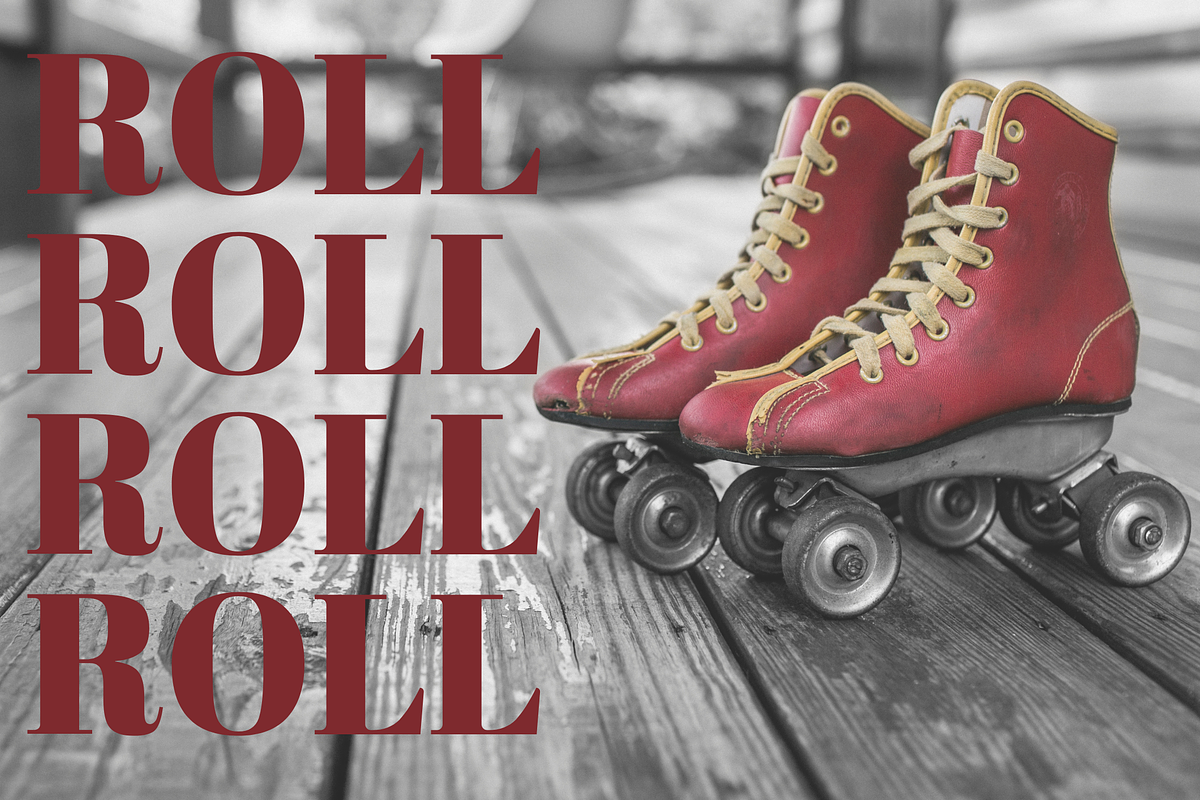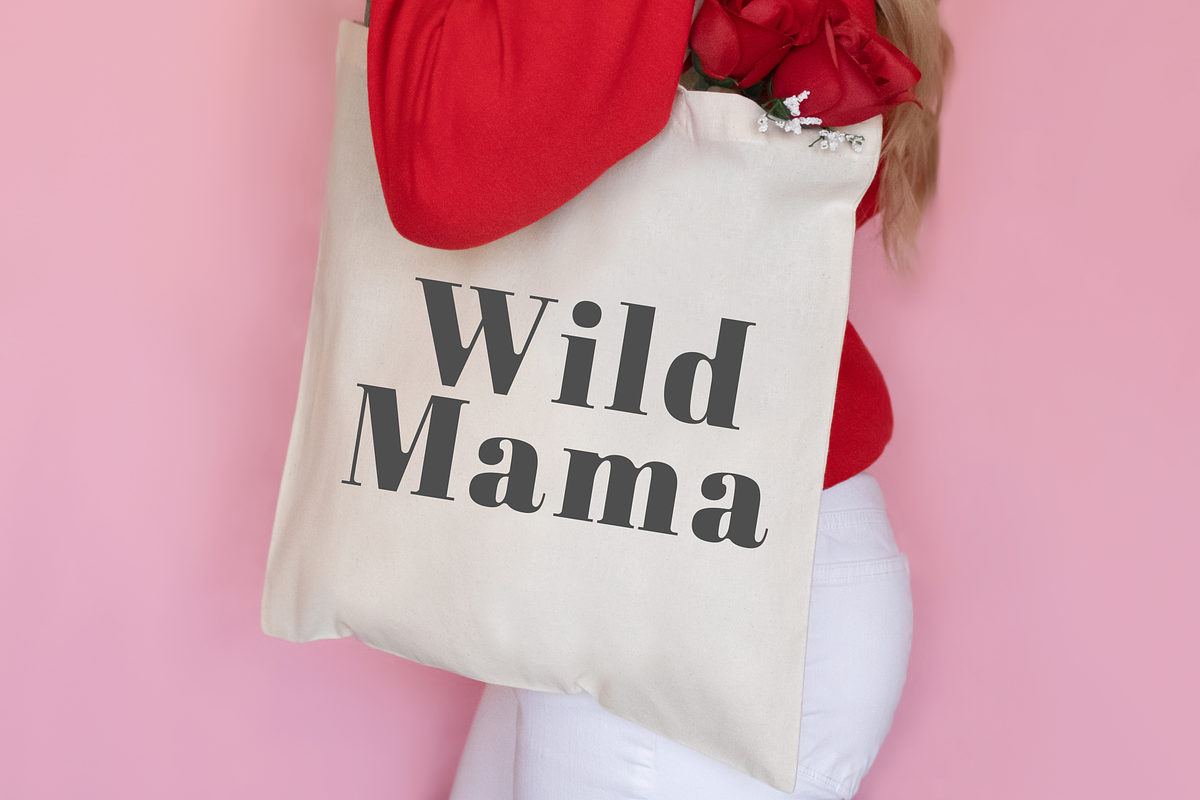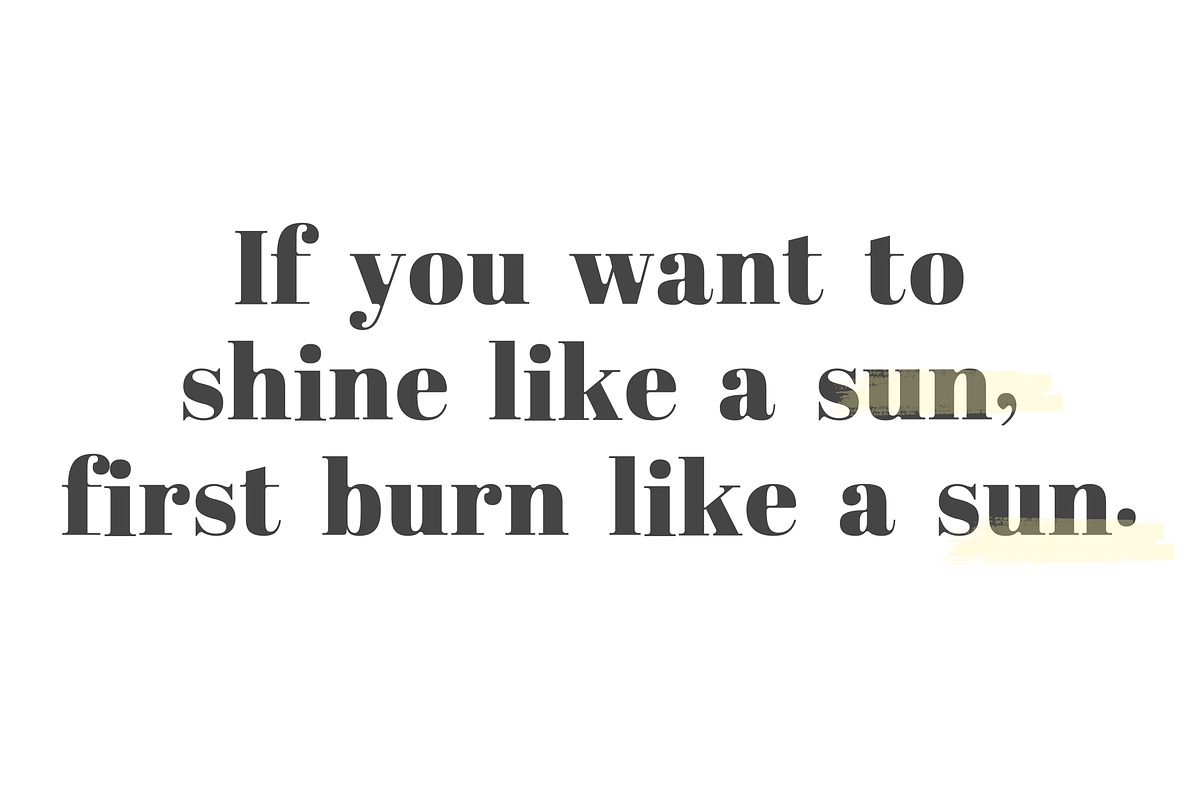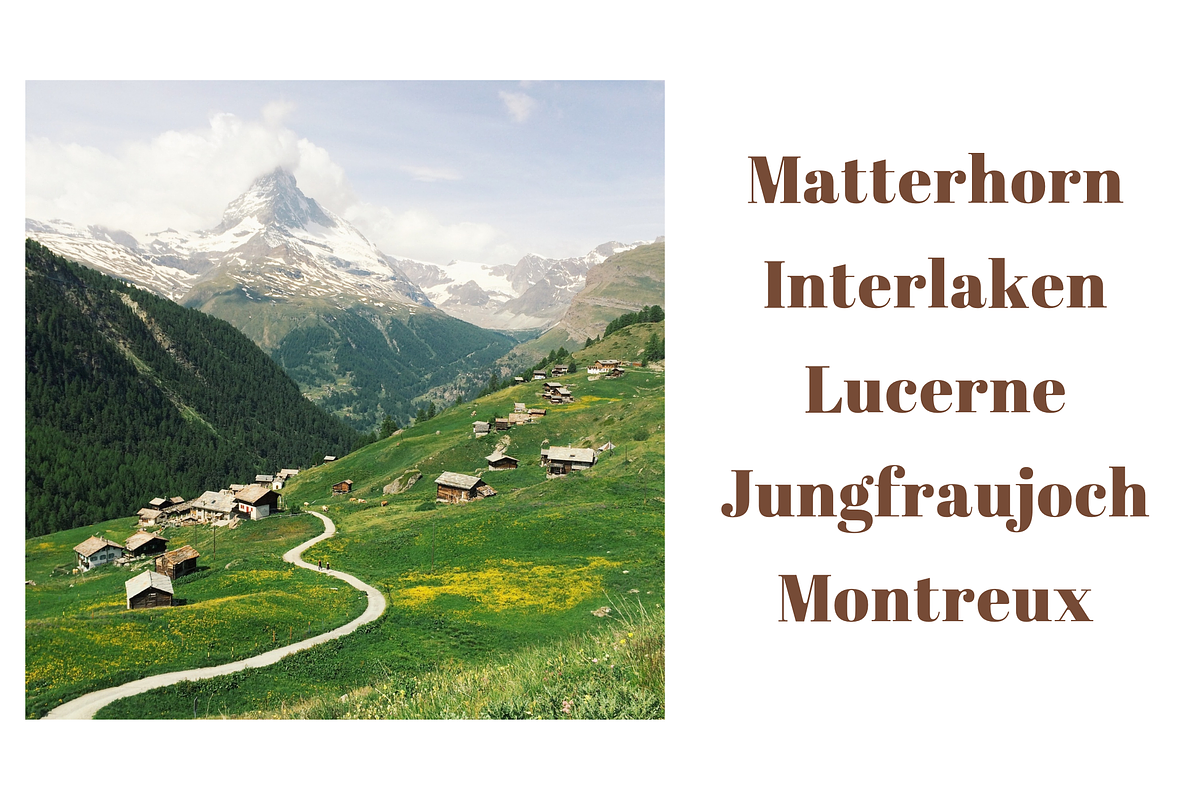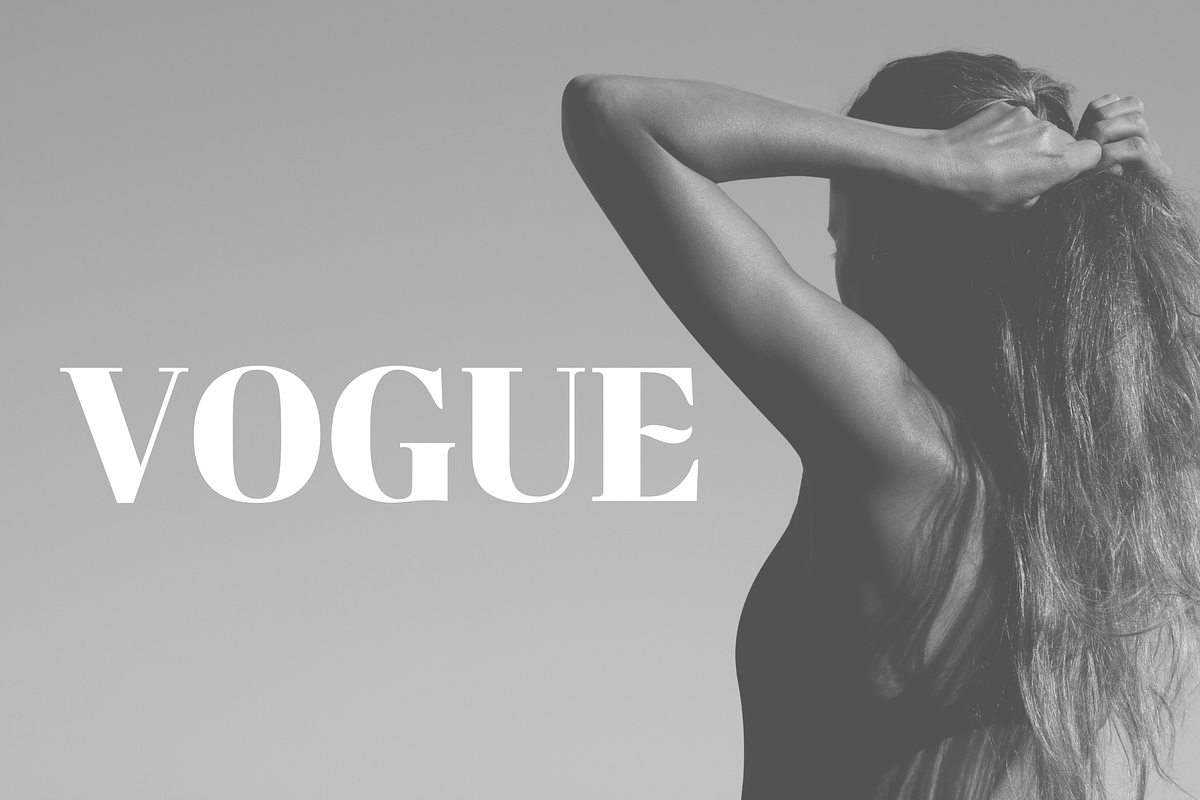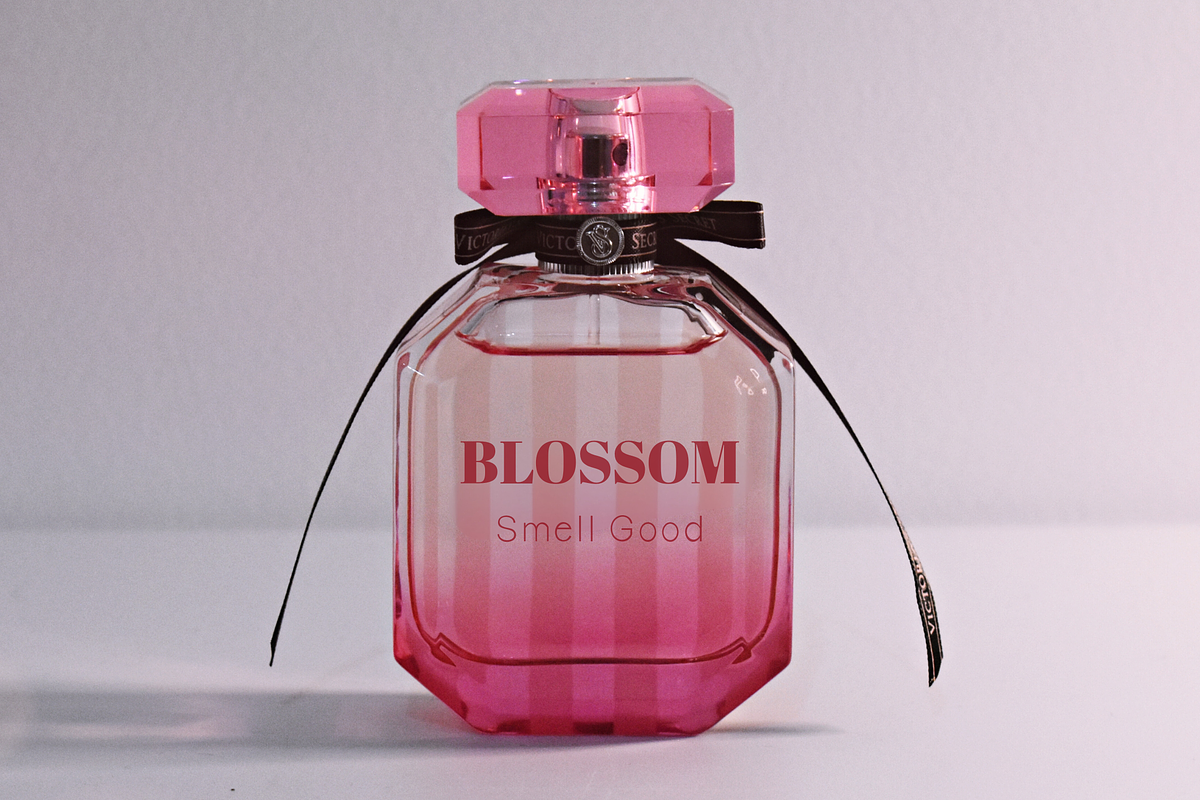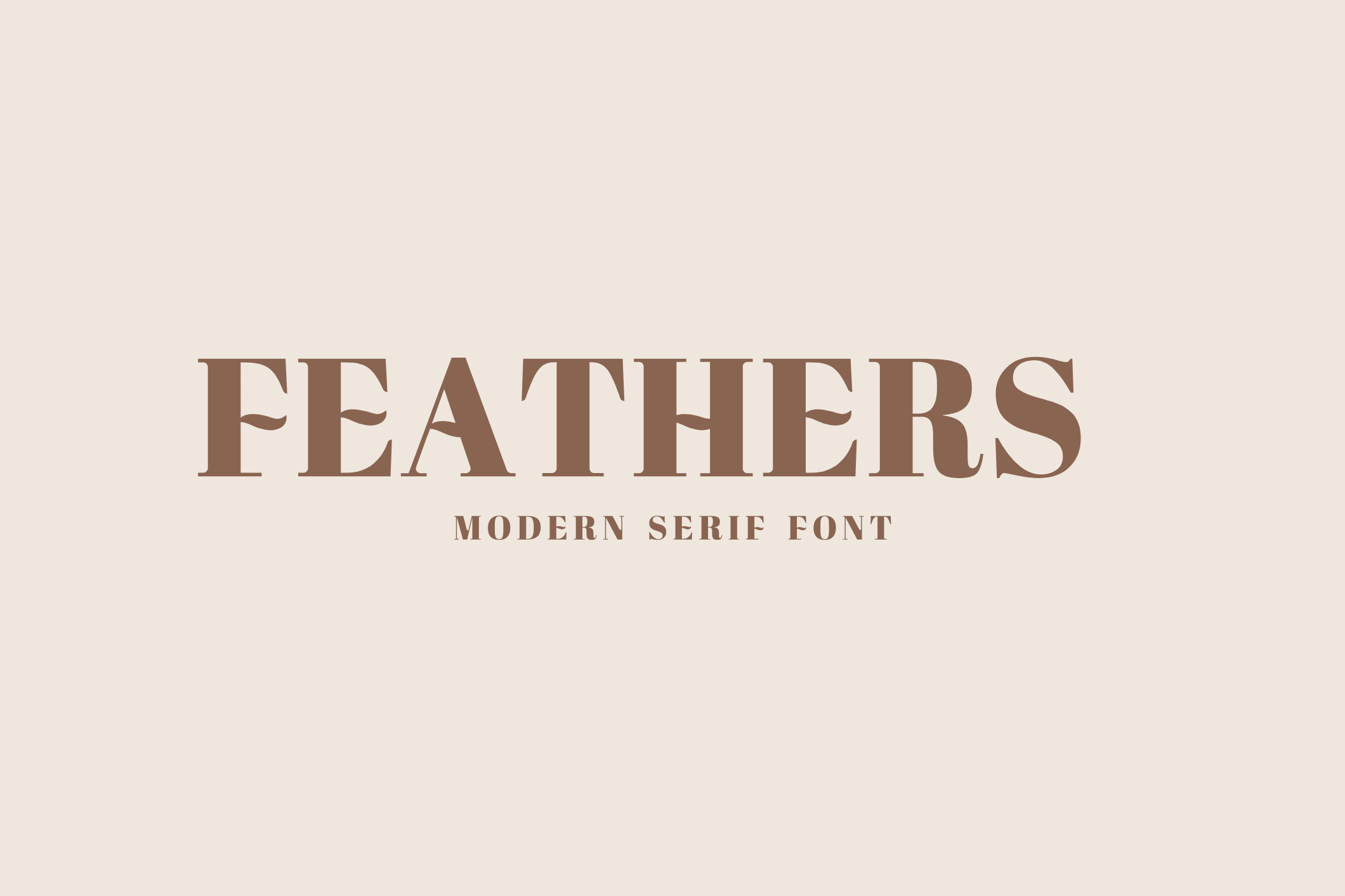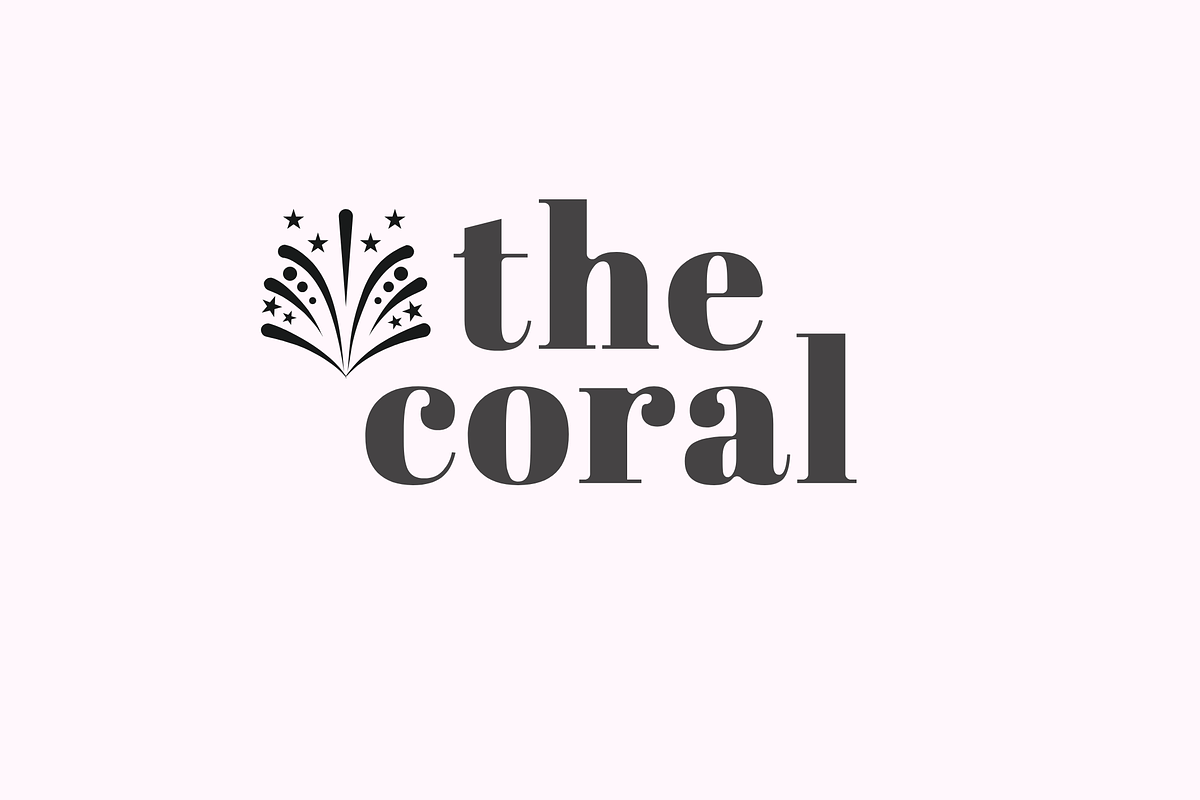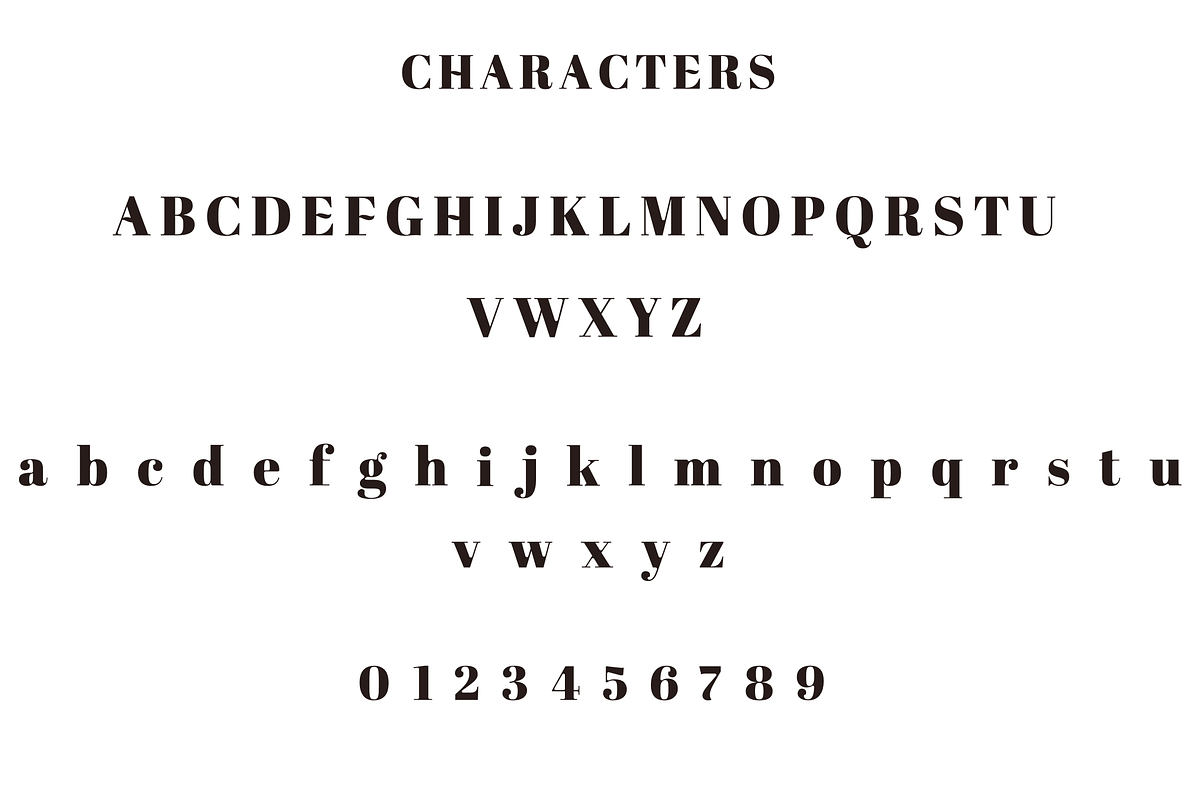
Feathers - serif font
Feathers is a sophisticated serif font that blends elegance with modern simplicity. Perfect for branding, editorial designs, luxury packaging, wedding invitations, and logo creation. With its smooth curves and refined details, Feathers is ideal for designers looking for a versatile and timeless typeface.
Features: Uppercase, Lowercase, Numbers & punctuation.